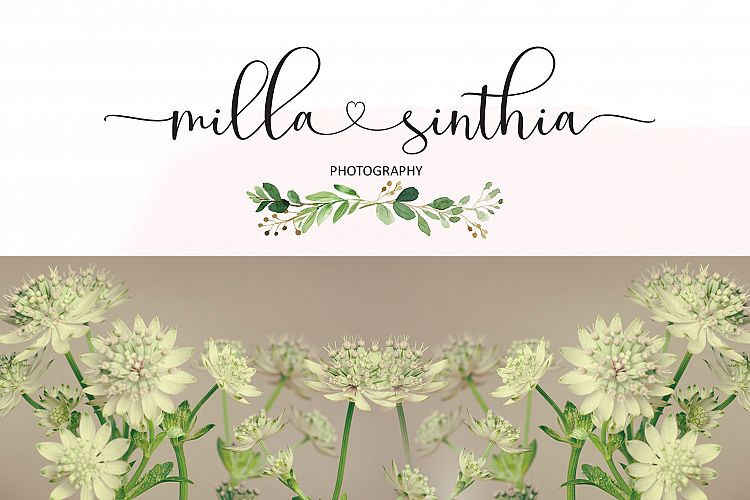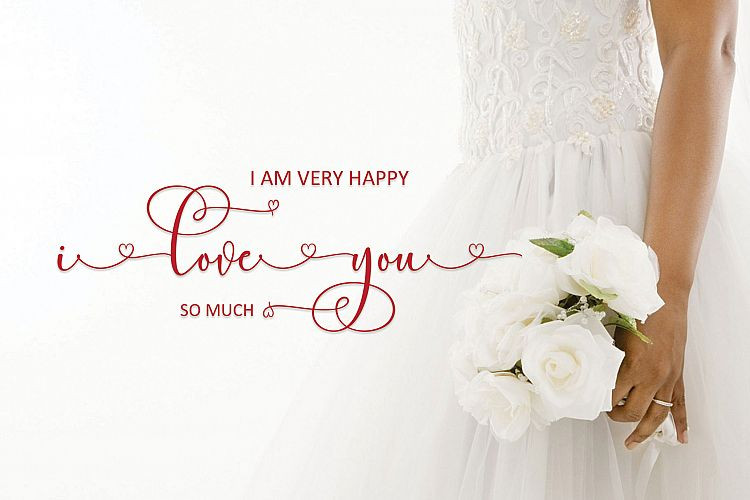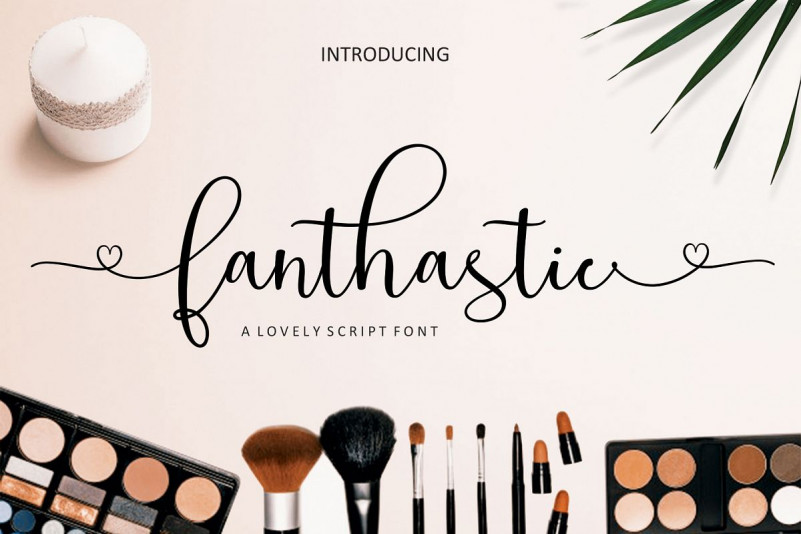
Fanthastic Font
Fanthastic Script : offers beautiful typography harmony for a variety of project design, including logo and branding, wedding design, social media posts, advertising, product design etc.
Fanthastic Script : includes lowercase and uppercase letters, numbers, punctuation marks, standard ligatures, stylistic set and multiple language support.